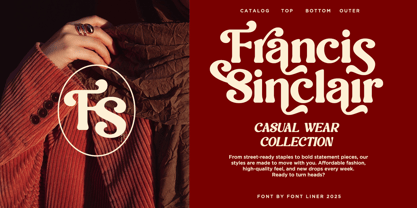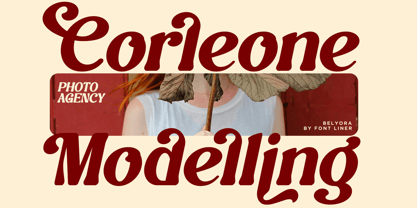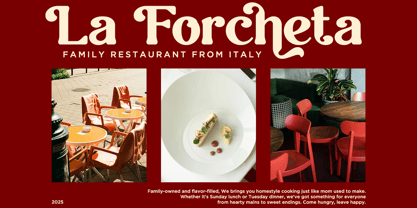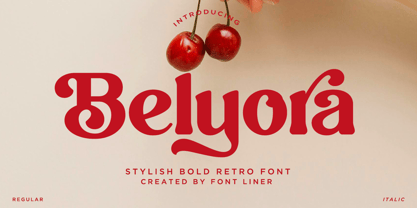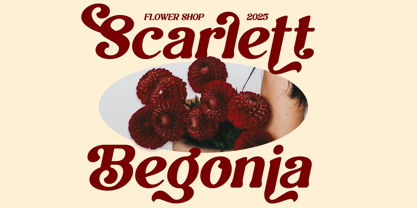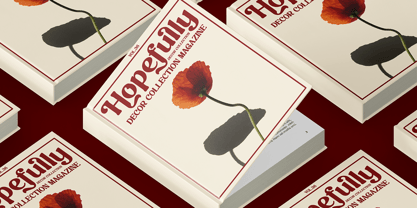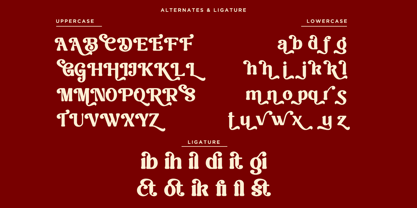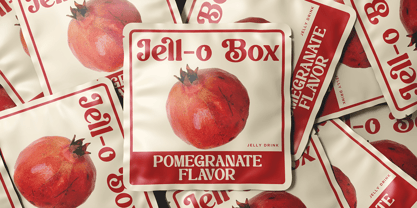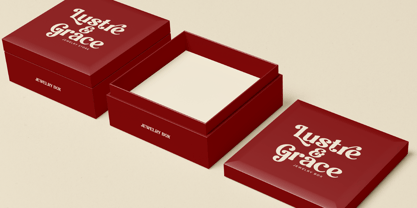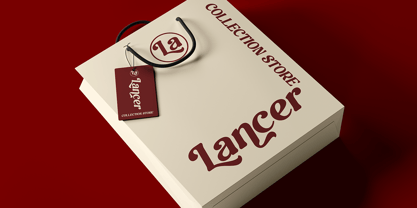
Belyora
The Belyora Font Family was designed by Ghina Luthfiarieska and published by Font Liner. Belyora contains 2 styles and family package options. More about this family
Belyora is stylish bold retro Font with unique display serif font designed to bring character and stylish to your projects. Featuring alternates and ligatures, this typeface offers flexibility for creating distinctive typography styles. Ideal for branding, logos, posters, magazines, packaging, and print designs, Belyora ensures a timeless yet modern look. With both regular and italic versions, this font is perfect for making a statement in high-end editorial, fashion, and stylish branding. Belyora Included : - Belyora Regular - Belyora Italic - Stylish Alternates - Ligatures Character - Multi Language Support Thanks, Have a wonderful day